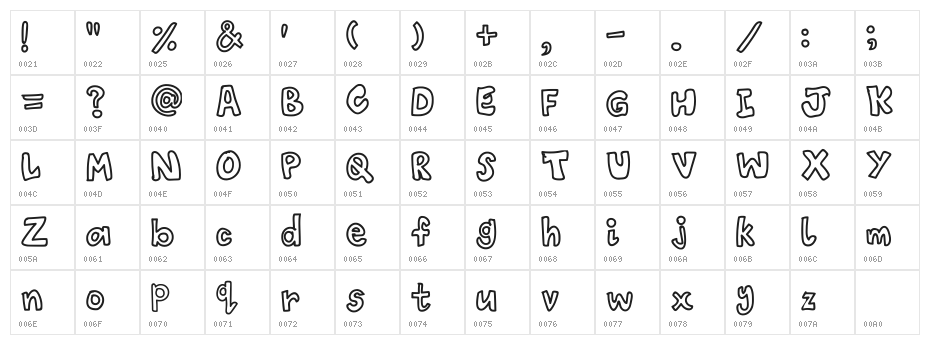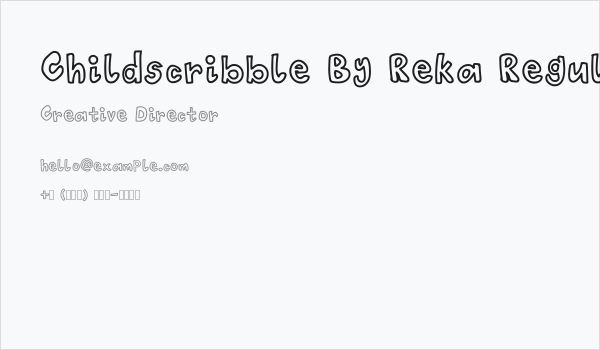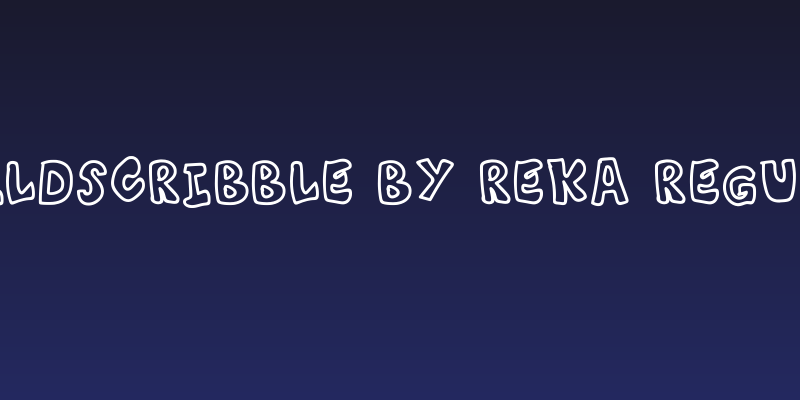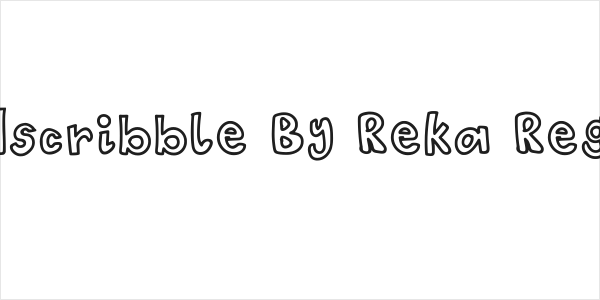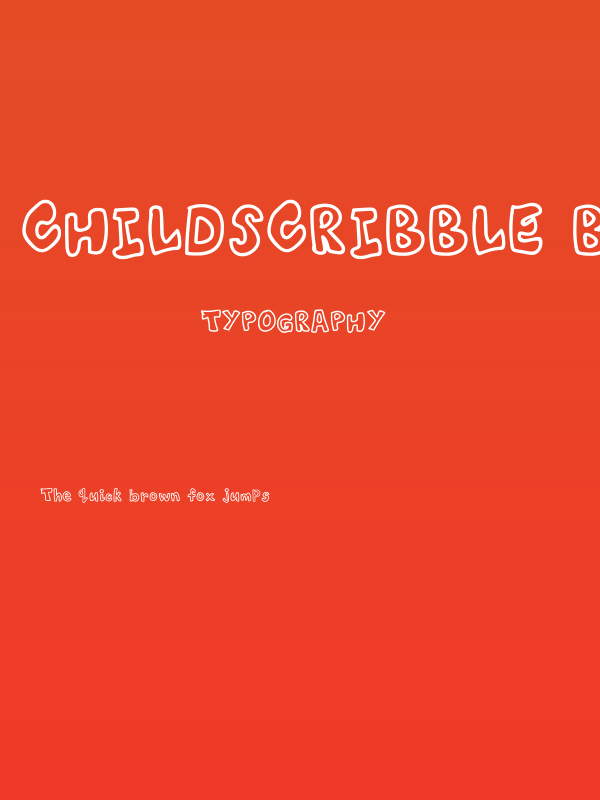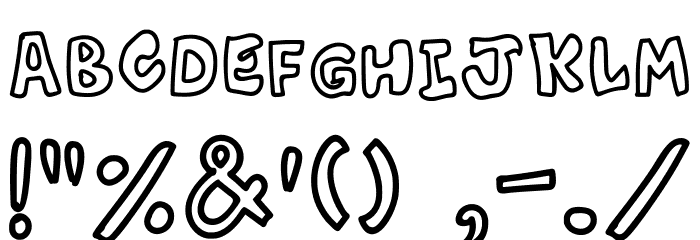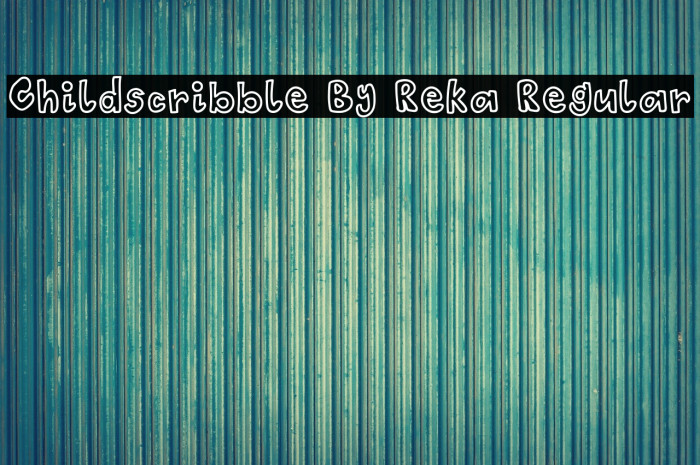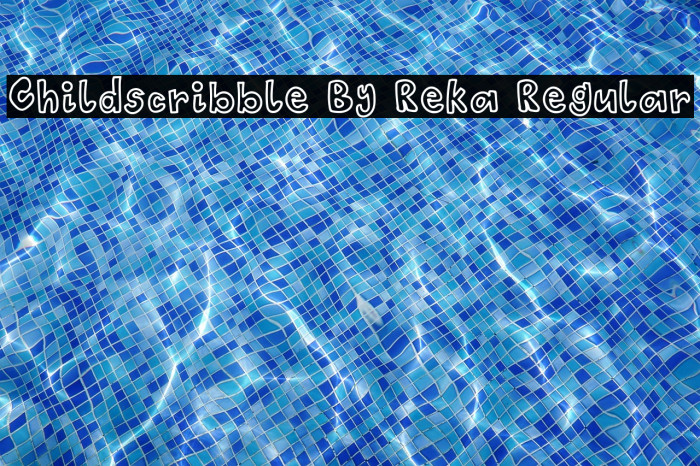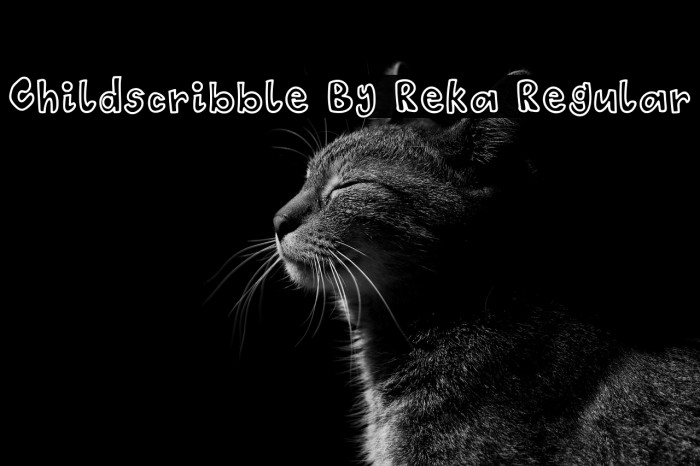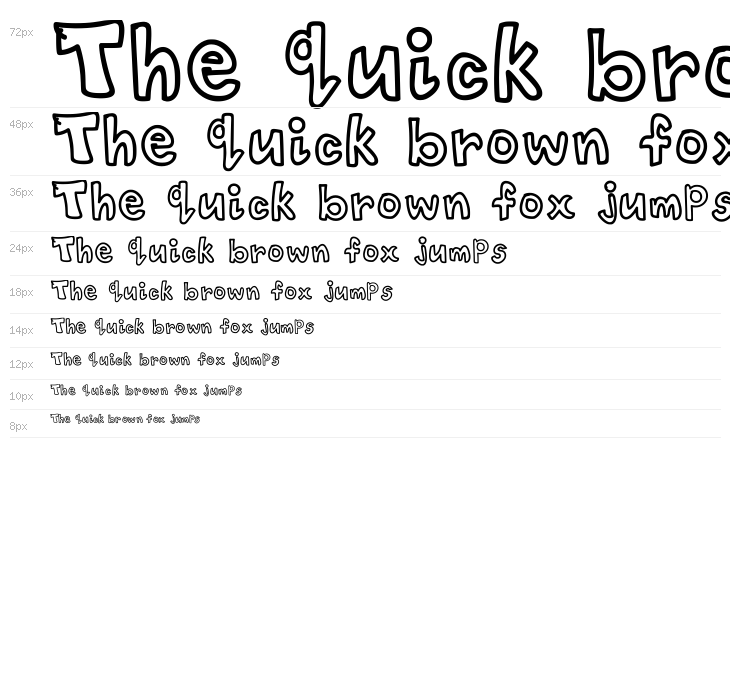
Childscribble By Reka Regular Font
Childscribble By Reka Regular Description
This playful and whimsical font features a hand-drawn style that mimics the carefree and spontaneous nature of children's handwriting. The characters are bold and rounded, with uneven lines that give a sense of movement and energy. The font includes both uppercase and lowercase letters, numbers, and a variety of special characters, all maintaining the same lively and informal aesthetic. Its unique charm lies in its imperfect, doodle-like appearance, making it ideal for projects that require a touch of creativity and fun.
| Proposed Projects | Ideal for children's books, educational materials, playful branding, greeting cards, and creative posters. |